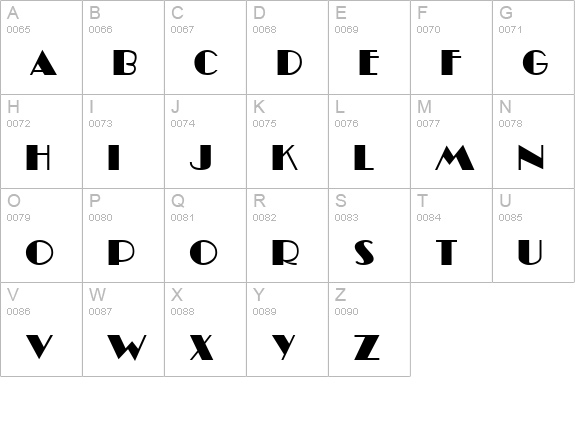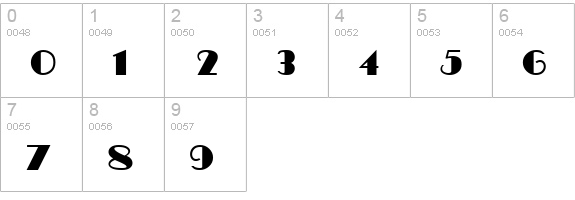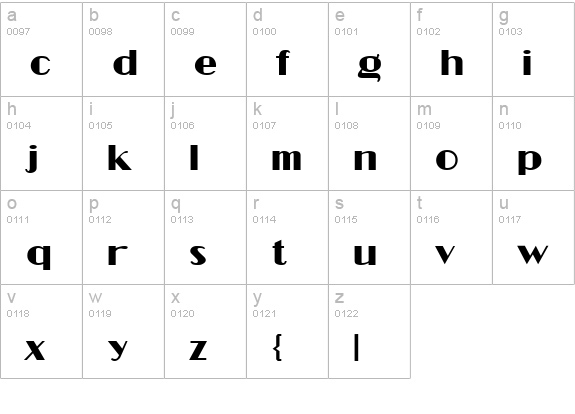
MiamiNights Font Details
MiamiNights font is a sleek and stylish typeface that exudes a vibrant energy perfect for modern design projects. With its bold letterforms and trendy aesthetic, this font is sure to make a statement in any creative layout. Whether you're designing a poster, logo, or social media graphic, MiamiNights will add a touch of sophistication and flair to your work. And the best part? MiamiNights font is completely free to download at FontsMarket.com. So you can elevate your designs without breaking the bank. Don't miss out on this amazing opportunity to add a touch of Miami flair to your projects with the MiamiNights font - download it today!